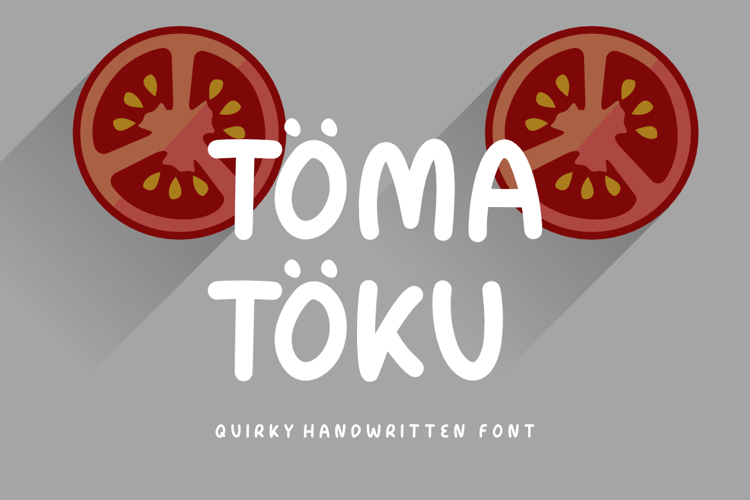
Tomatoku Font
Tomatoku - Quirky Handwritten Font, inspired by quirky handwritten. This font is made with a high premium quality level which you can use as flyers, quotes, posters, banners, packaging, merchandise, logotypes and much more.